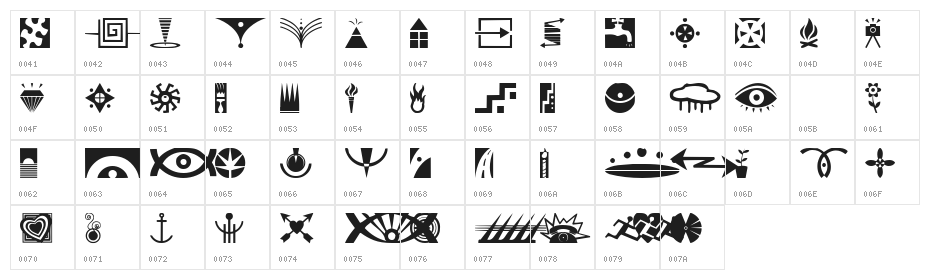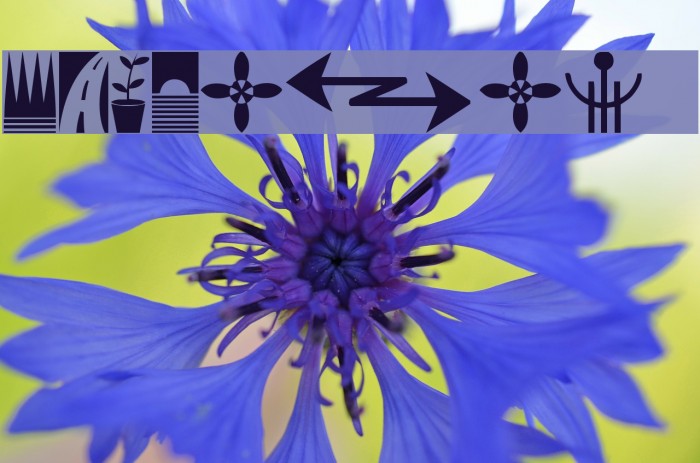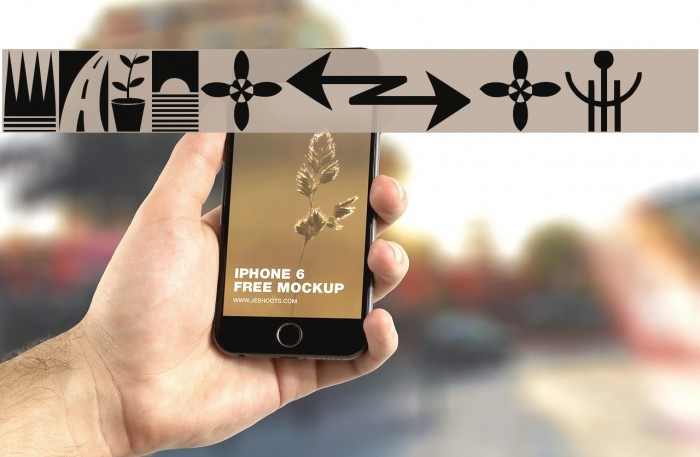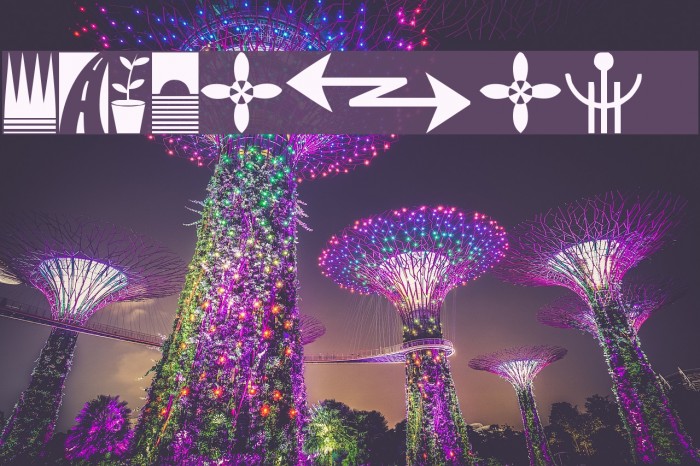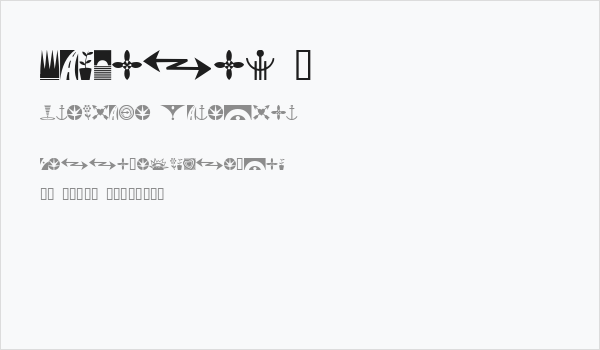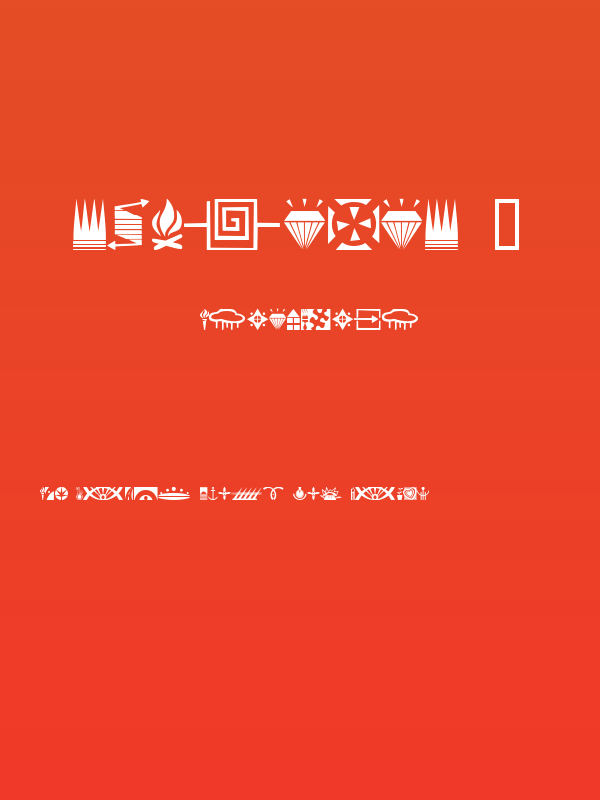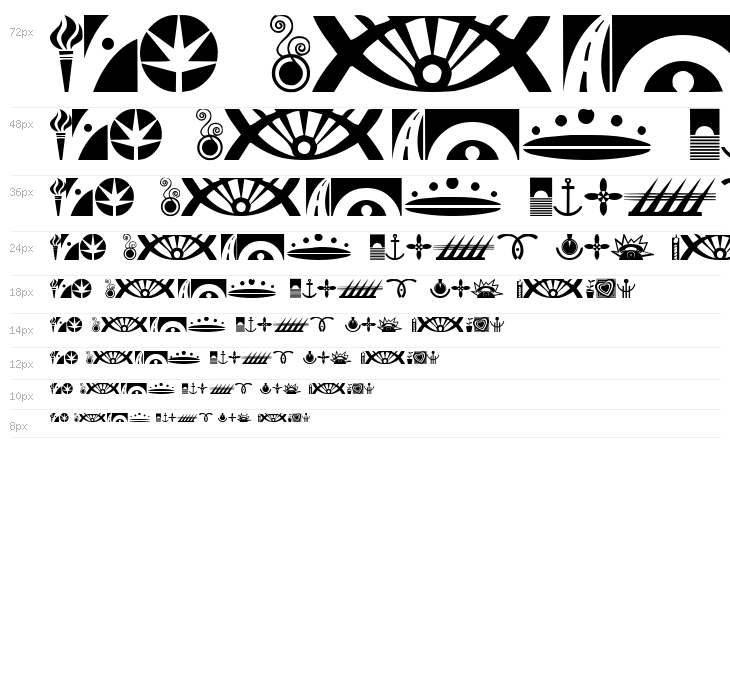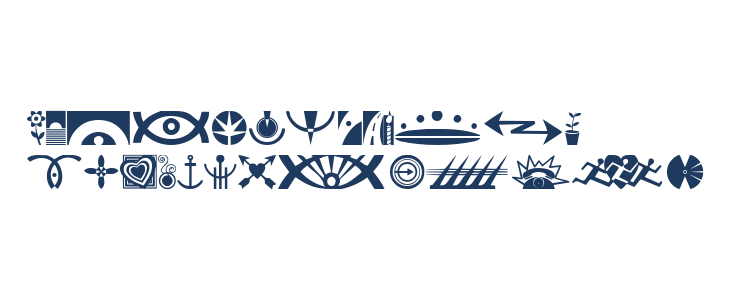
Simbolos 1 Font
Simbolos 1 Description
A decorative symbol set featuring a variety of abstract, geometric, and pictorial icons such as eyes, plants, diamonds, arrows, flames, and other unique shapes. The symbols are bold, high-contrast, and primarily composed of solid black fills with occasional negative space.
Overall StyleDecorative, Modern, Abstract
Use CaseIcons, Logos, Decorative elements, Graphic design accents
Proposed ProjectsBranding, posters, packaging, digital stickers, educational materials, infographics, creative art projects.